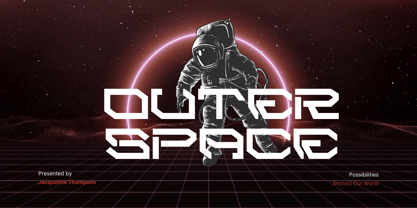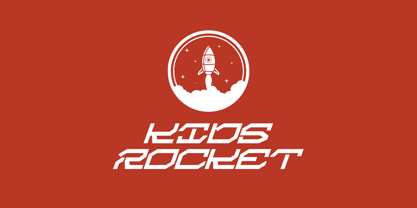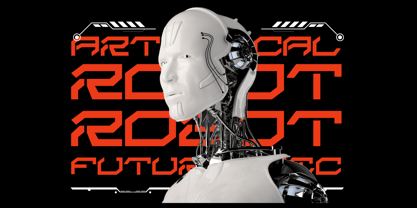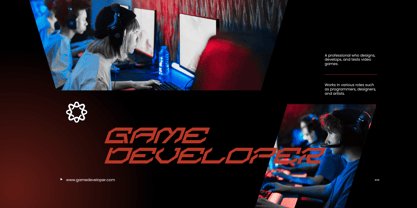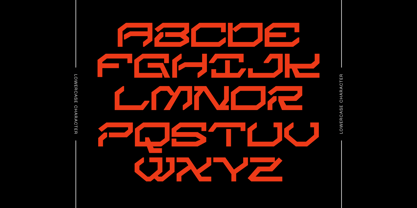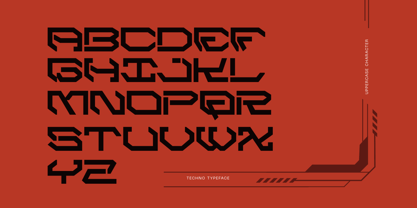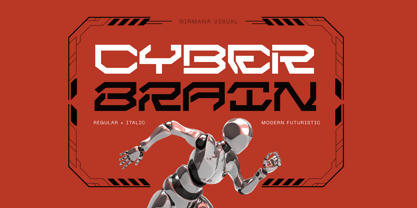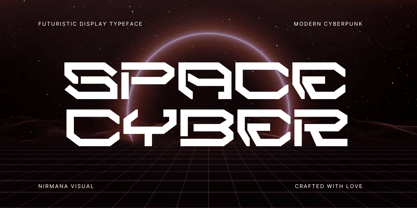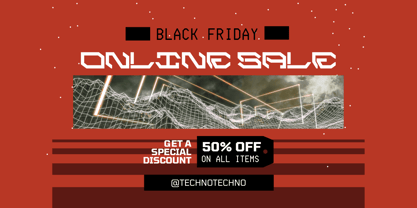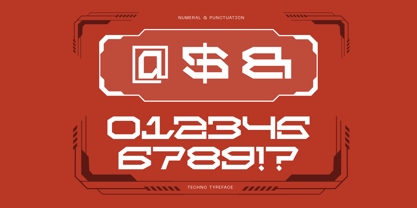
Space Cyber
por Nirmana Visual
A família de fontes Space Cyber foi desenhada por Sigit Dwipa e publicada pela Nirmana Visual. Space Cyber contém 2 estilos e opções de pacote familiar. Saiba mais sobre esta família
Space Cyber a modern futuristic cyberpunk font designed for bold displays and high-tech interfaces. Inspired by neon-lit cityscapes and digital dystopias, Space Cyber fuses geometric precision with edgy stylization. Perfect for sci-fi titles, gaming UI, and cutting-edge branding, it delivers sharp aesthetics and a digital feel. Elevate your visuals with a font that captures the essence of the future clean, powerful, and unmistakably modern.
Designers: Sigit Dwipa
Fundição atual: Nirmana Visual